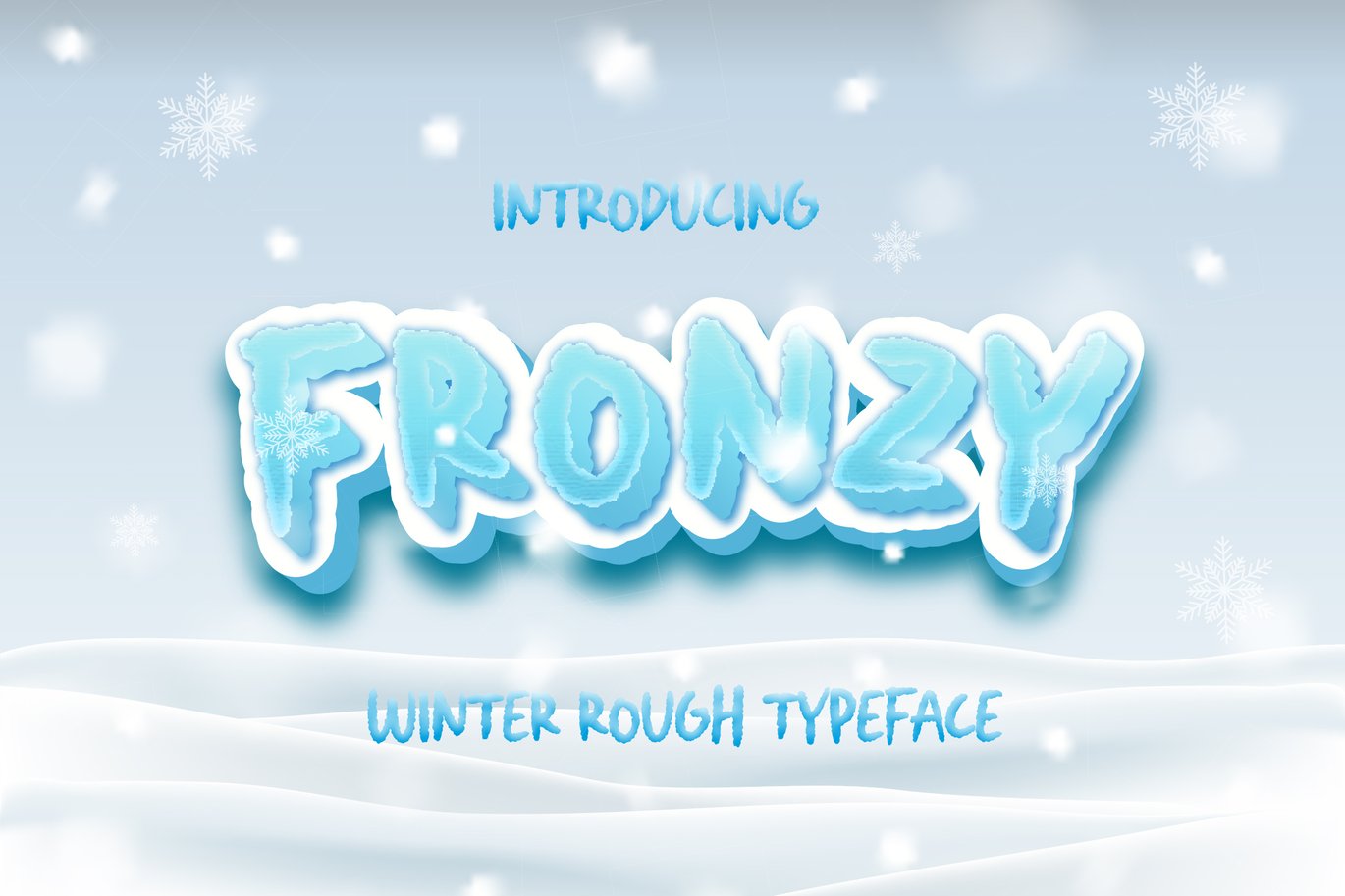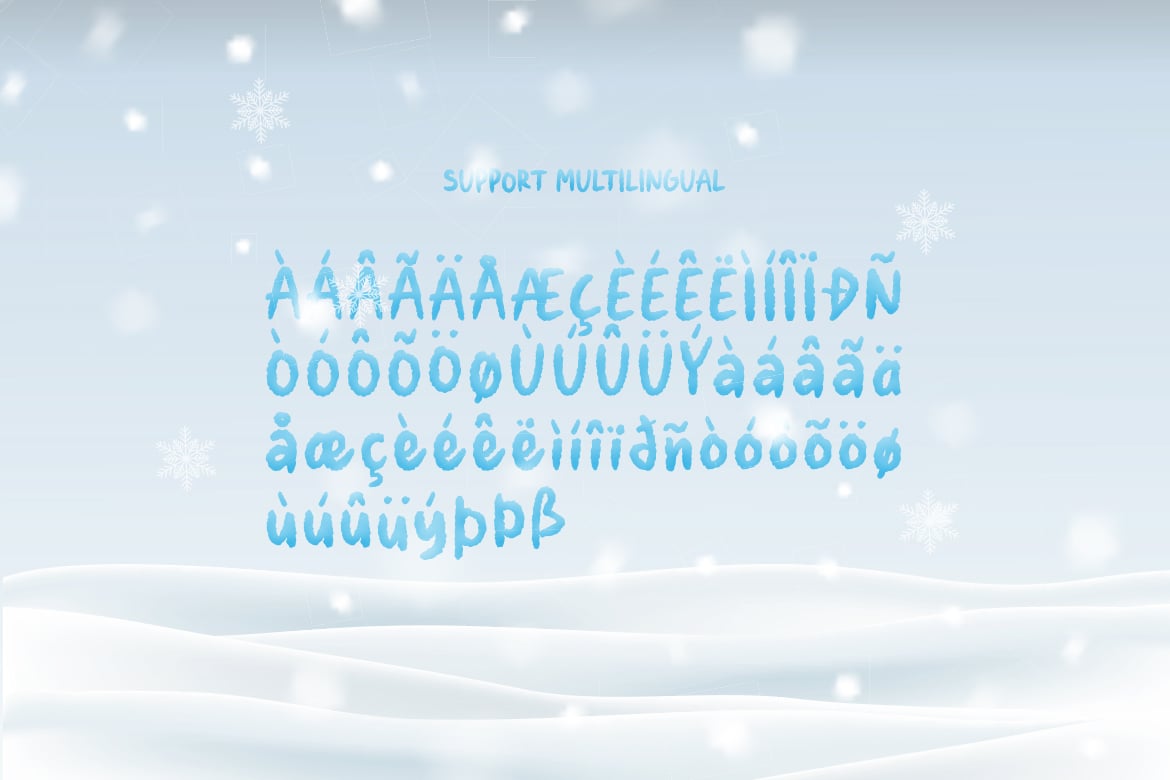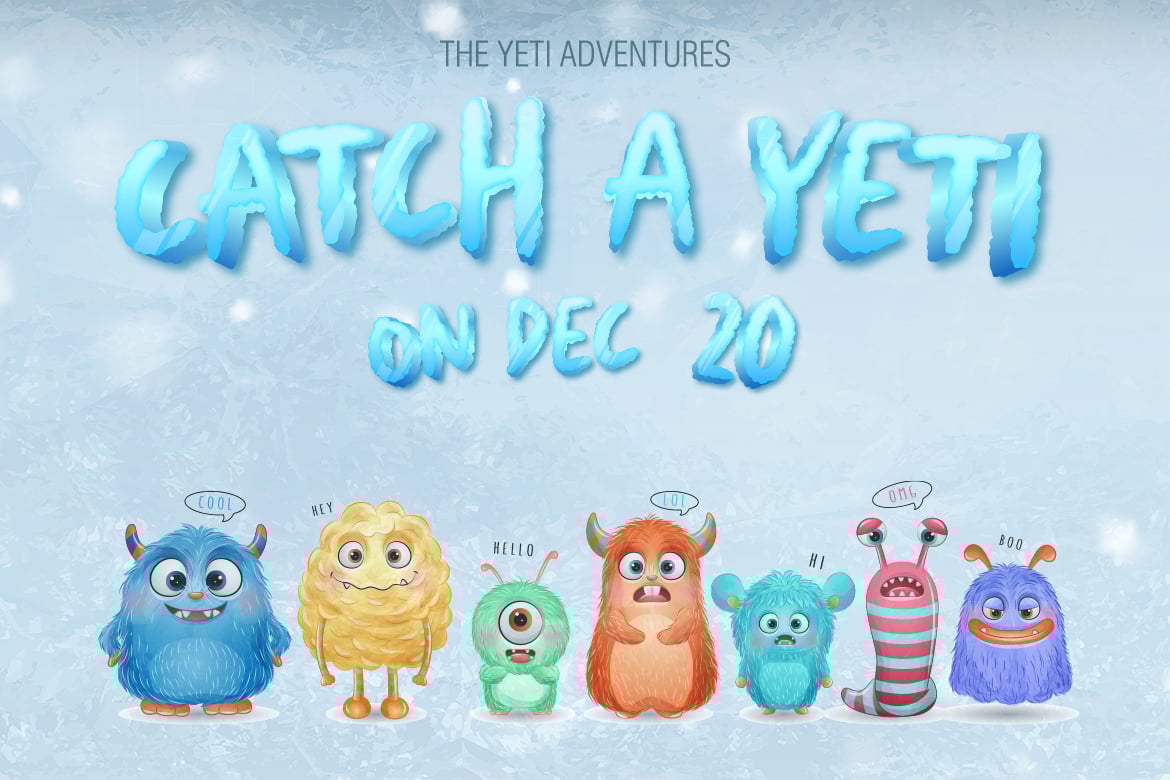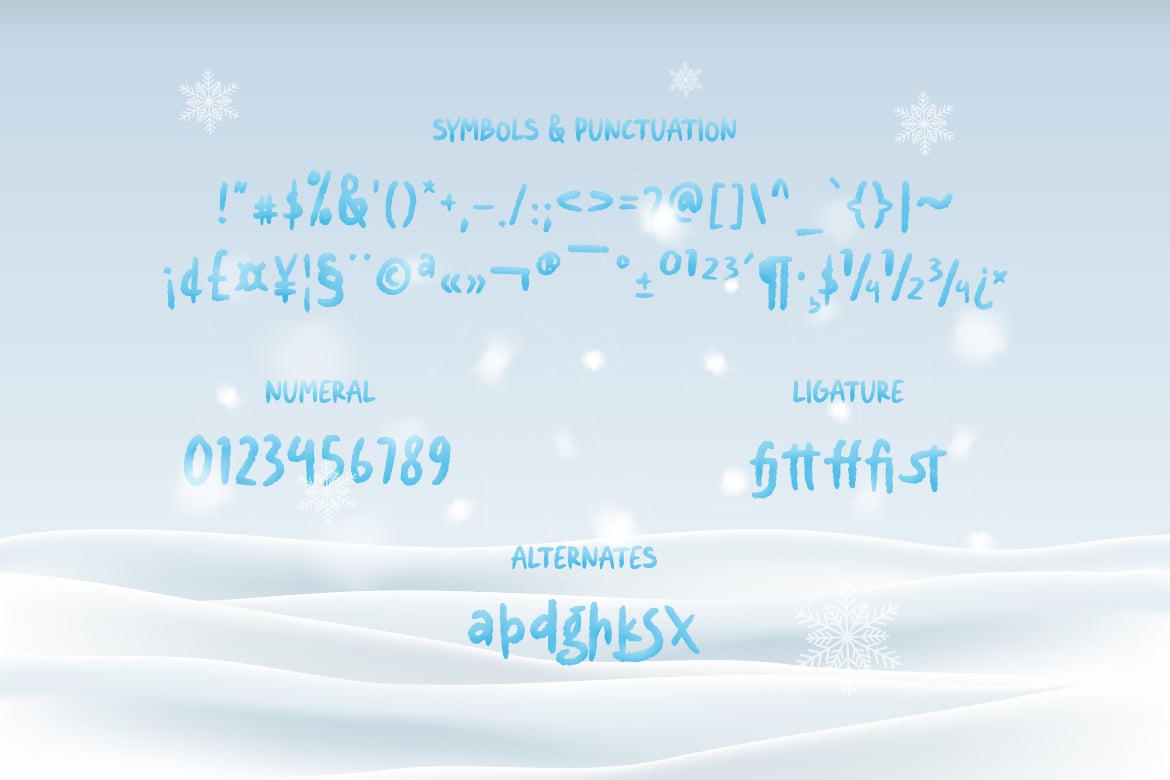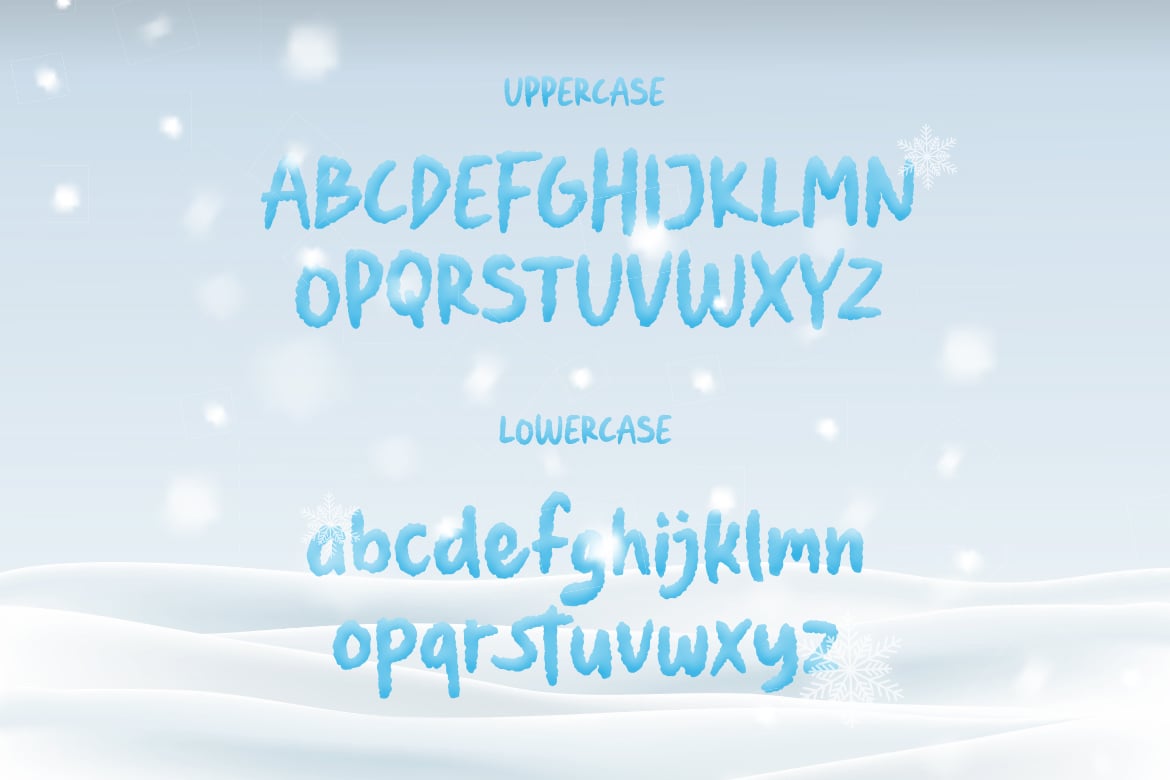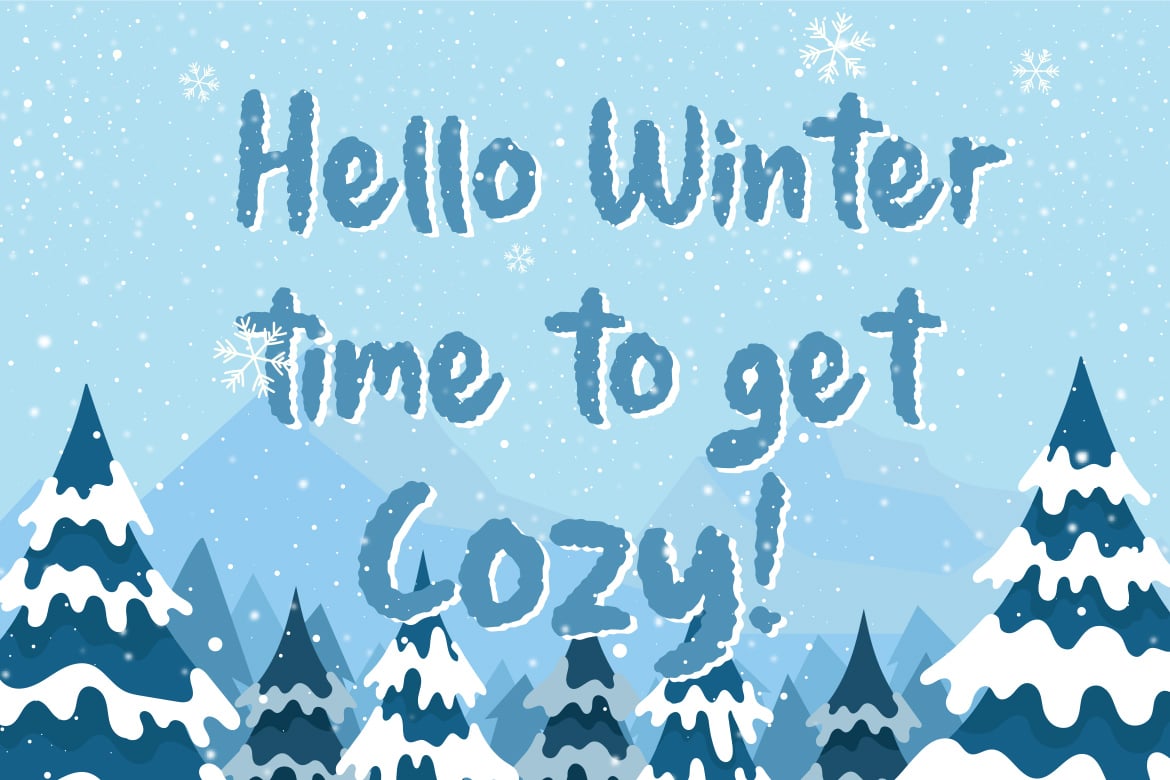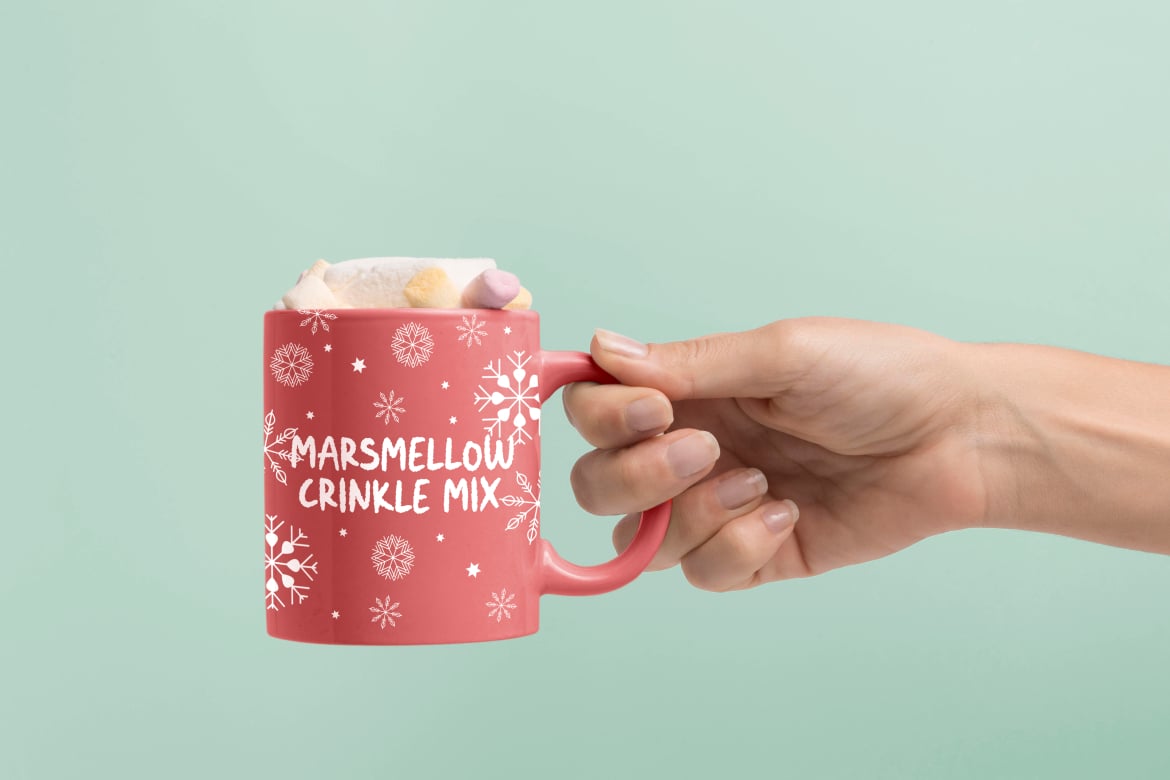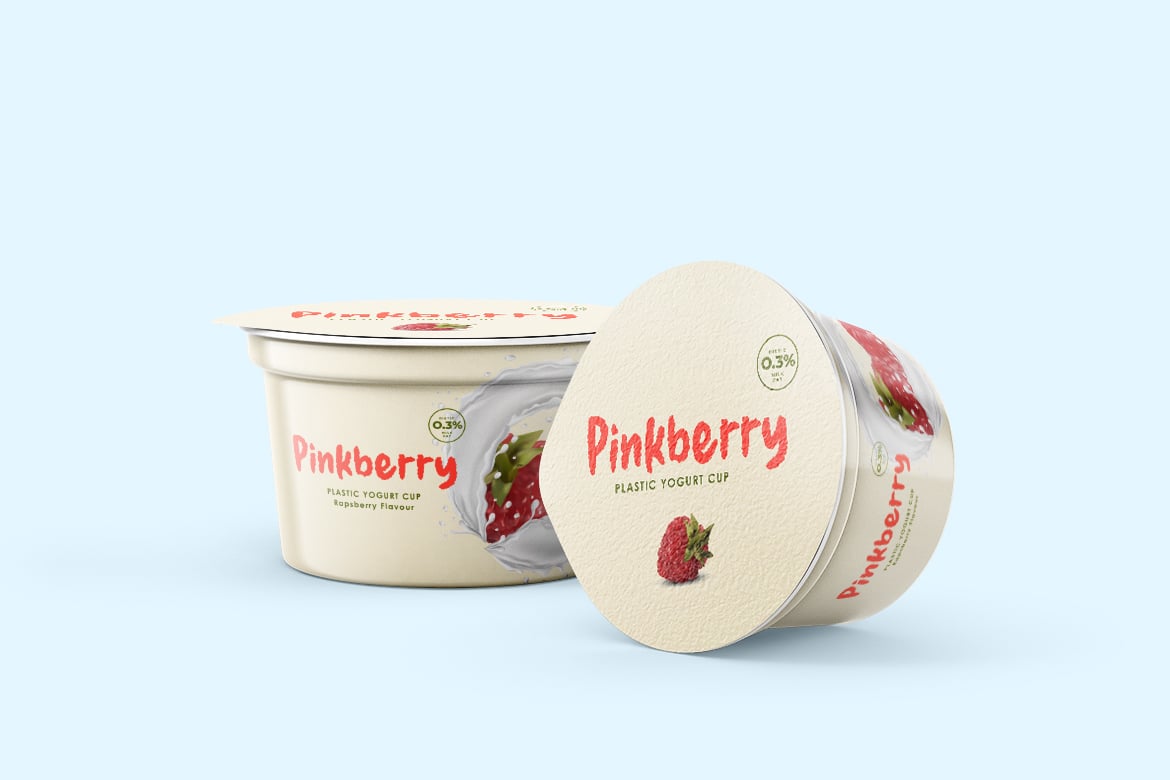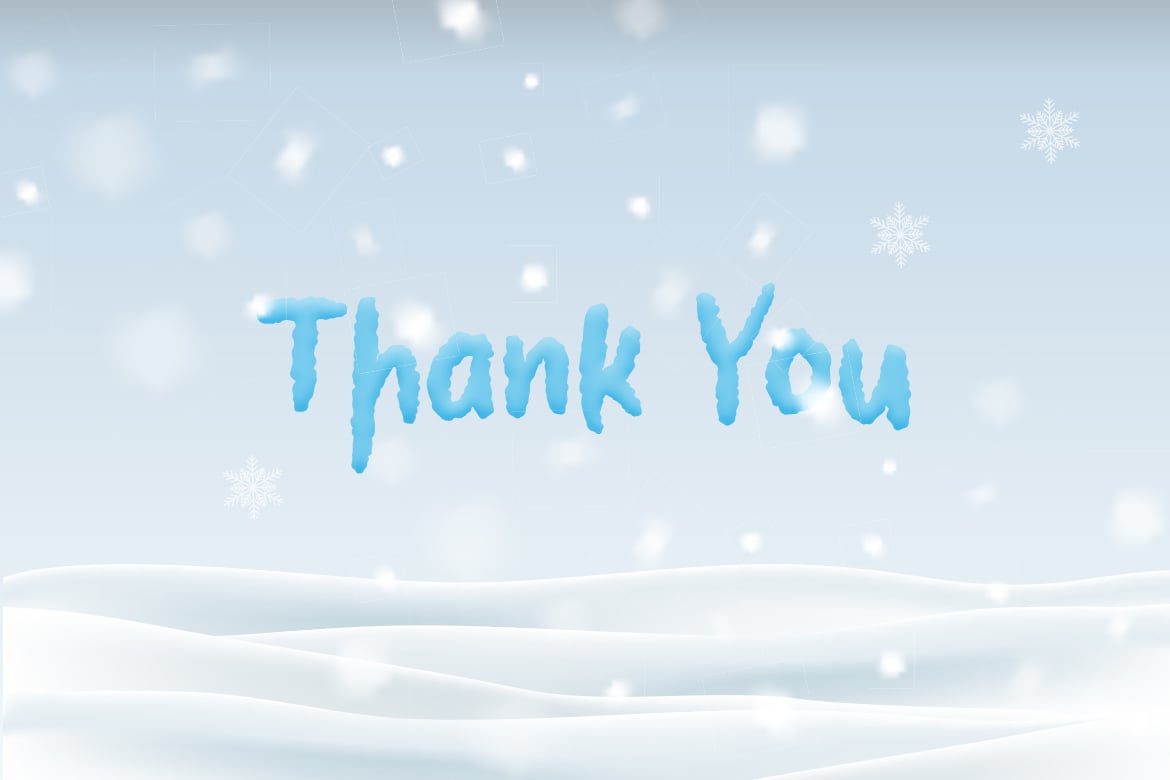
Fronzy – Winter Rough Typeface
Fronzy is a rough typeface with winter-themed. The font has an icy and cold feel that can be used for every project which needs a winter, icy, cool, or rough font.
– Alternates